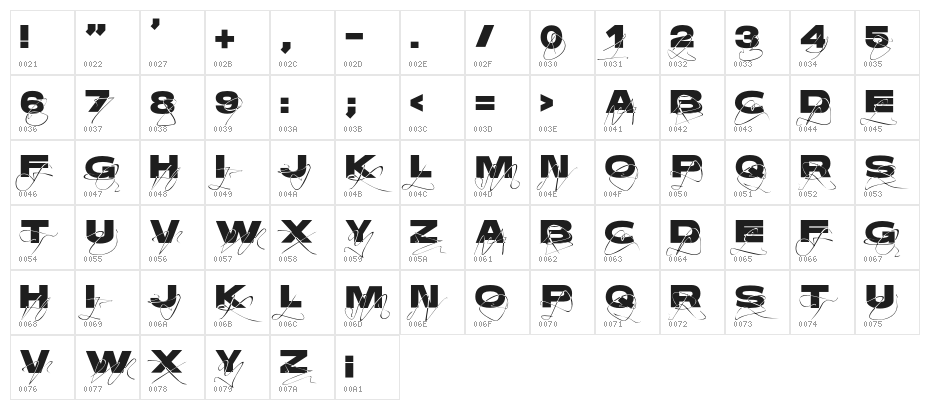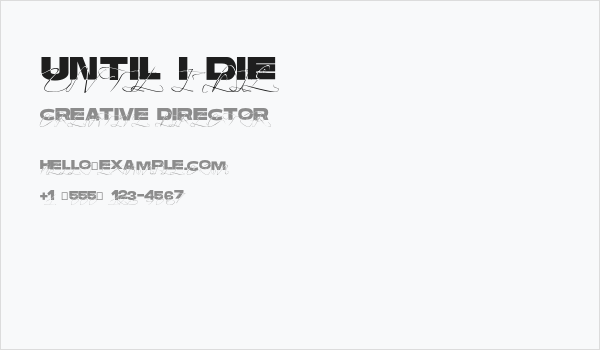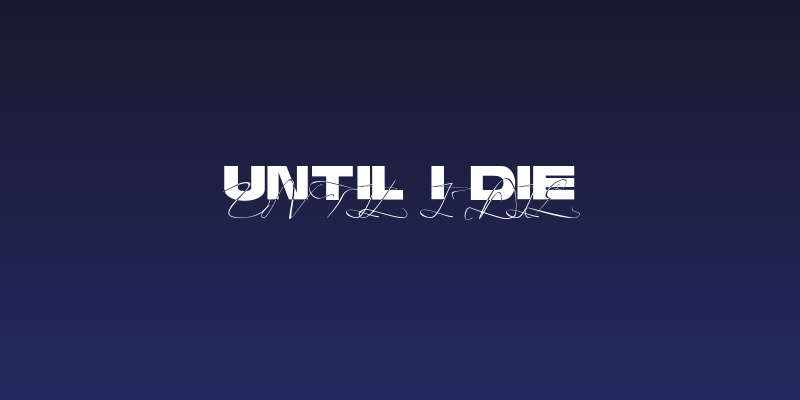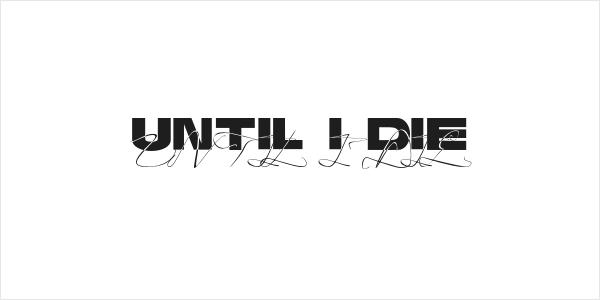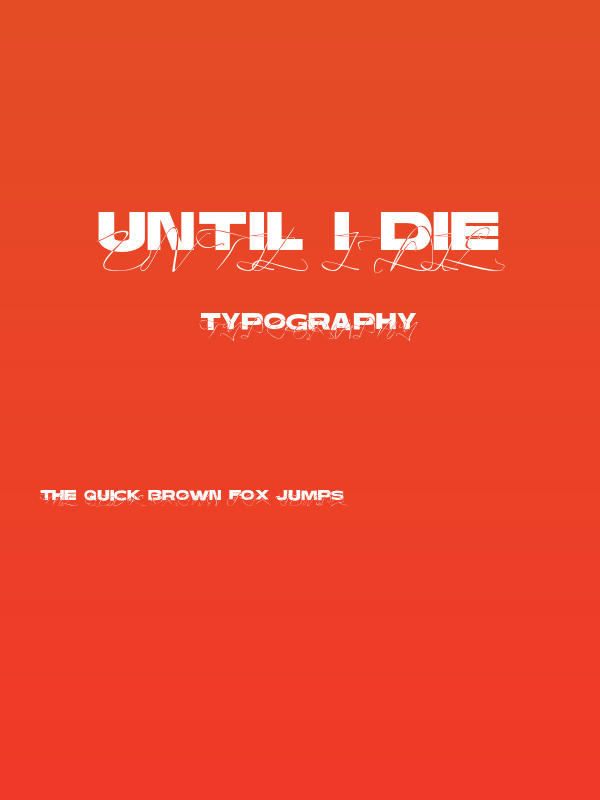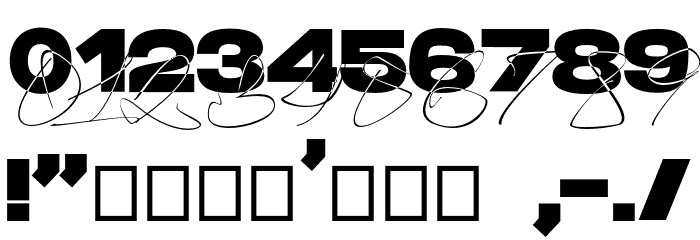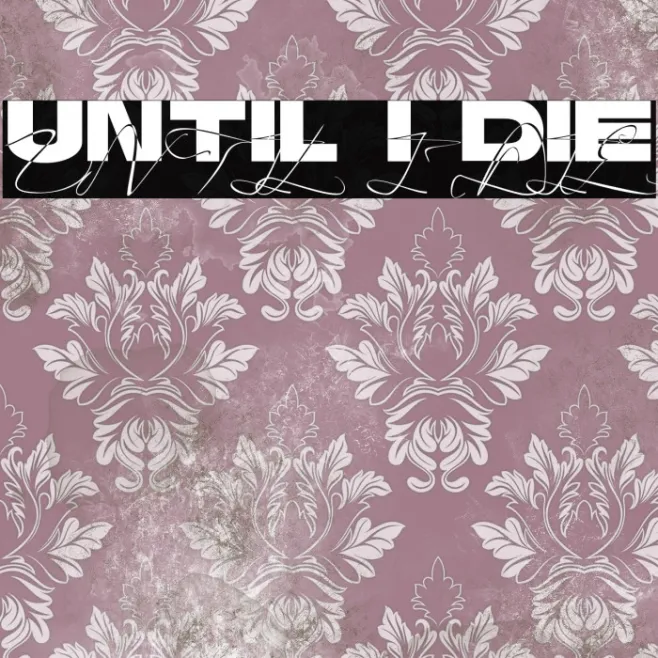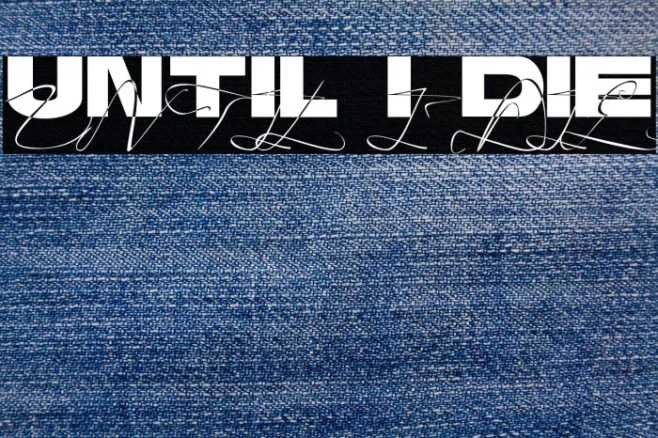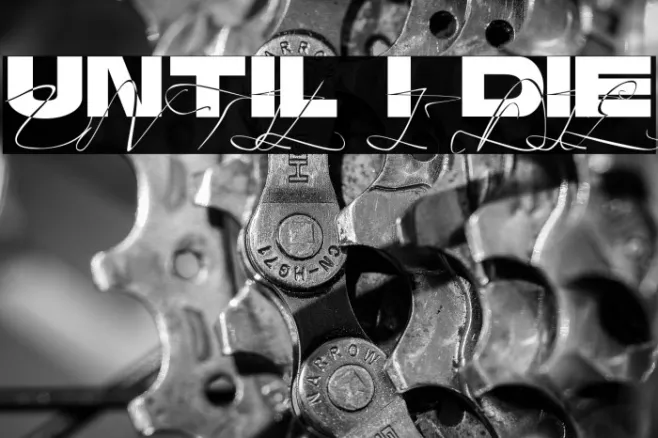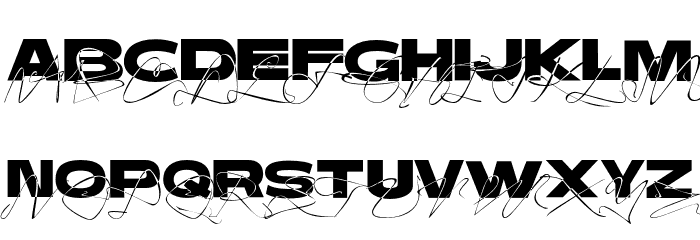
Until I Die Font
Until I Die Description
This font features a bold, modern style with a striking contrast between thick and thin strokes. The uppercase letters are solid and impactful, while the lowercase letters maintain a consistent weight. The numbers are bold and clear, making them highly legible. Special characters are designed with a similar boldness, ensuring they stand out. The font's overall appearance is sleek and contemporary, suitable for making a strong visual statement.
| Proposed Projects | Ideal for branding, headlines, posters, and any project requiring a bold and modern aesthetic. |